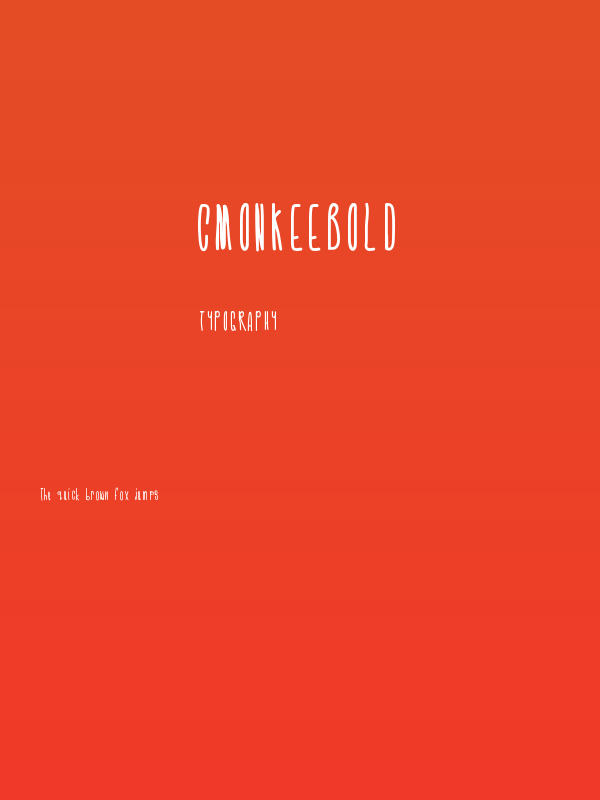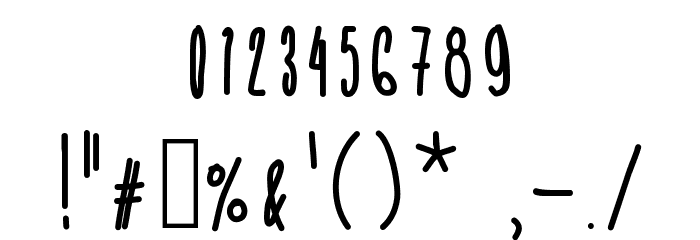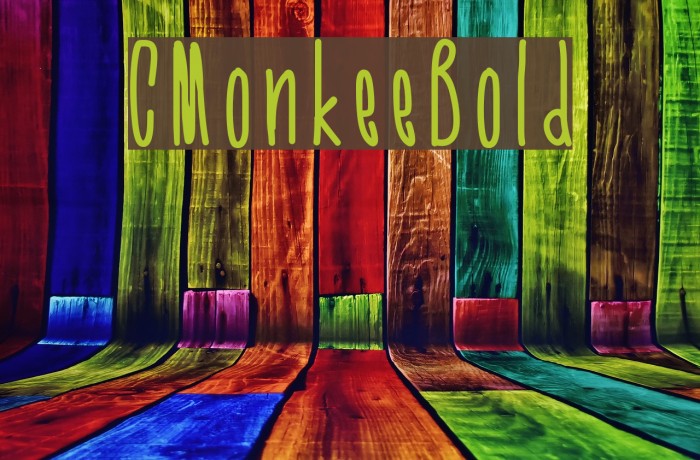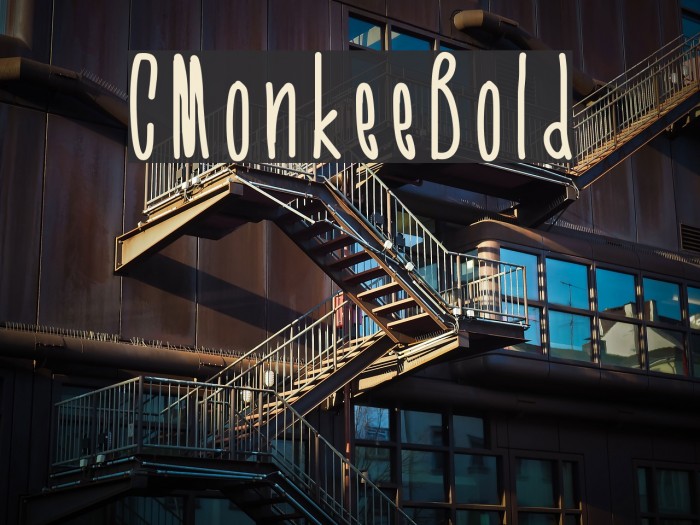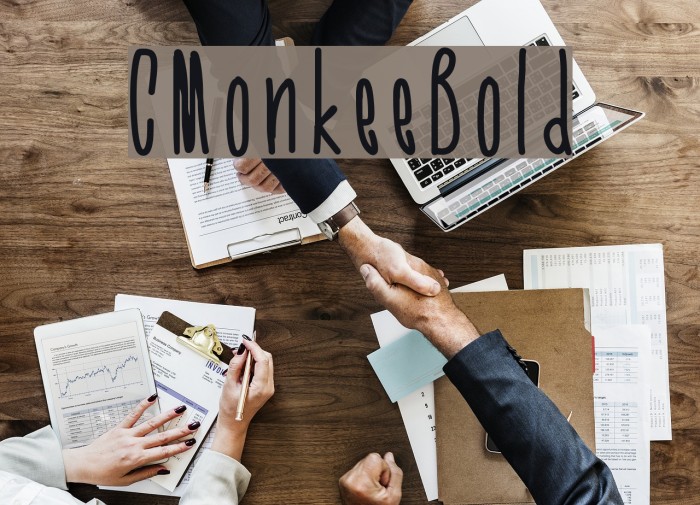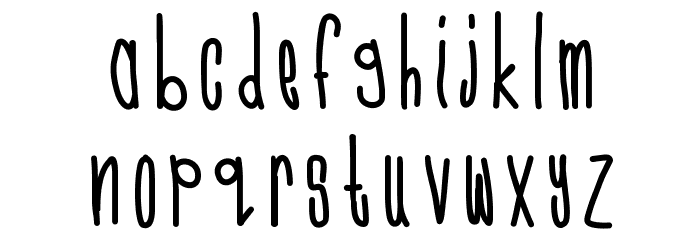
CMonkeeBold Font
CMonkeeBold Description
This font features a playful and quirky design with tall, narrow letters that have a hand-drawn appearance. The uppercase letters are bold and slightly irregular, giving them a whimsical feel. The lowercase letters maintain the same playful style, with some characters having unique, unexpected curves. Numbers and special characters follow the same design principles, ensuring consistency across the font. The overall look is casual and fun, making it suitable for creative and informal projects.
| Proposed Projects | Ideal for children's books, greeting cards, playful branding, and creative posters. |